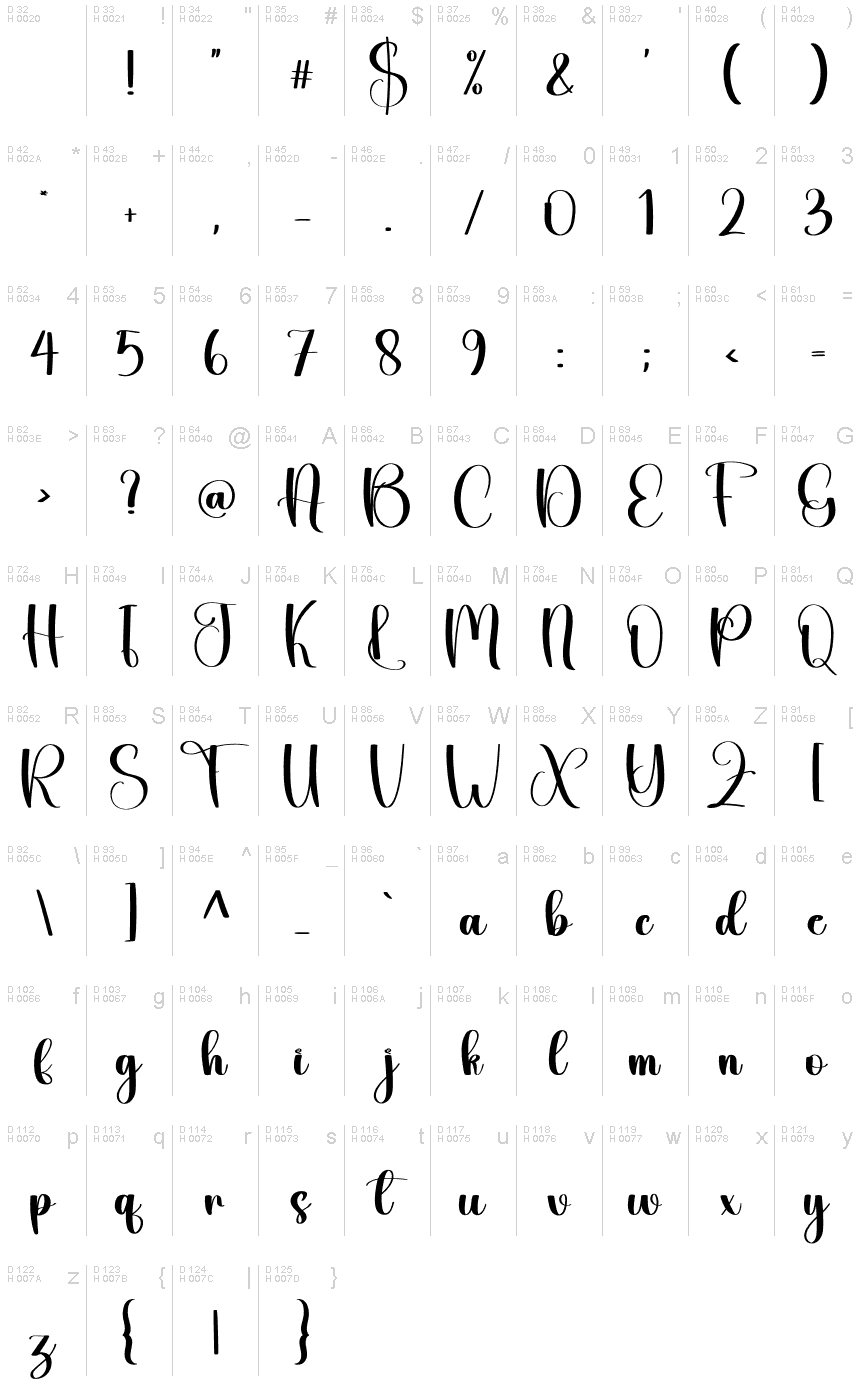
Beauty
Elegantly crafted by Harlek Studio, Beauty is a mesmerizing calligraphy font that exudes grace and sophistication. With its semi-light weight, this font effortlessly adds a touch of elegance to any project.
Ideal for wedding invitations, luxury branding, and high-end fashion magazines, Beauty accentuates the beauty in every word it forms. Its fluid strokes and graceful curves create a harmonious balance between modernity and timeless beauty.
Transform your designs into captivating works of art with the enchanting allure of Beauty.